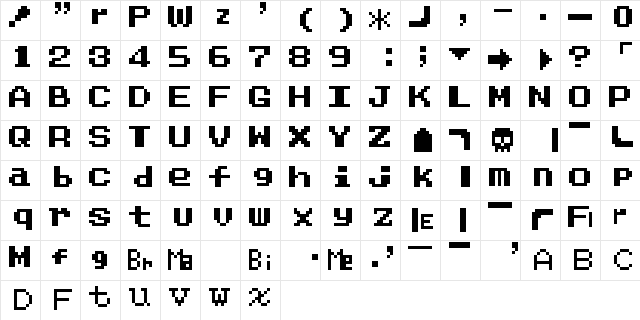
Dragon Warrior III Regular
| Designer | myname5749 |
Design Context for Dragon Warrior III Typeface
Dragon Warrior III offers clean, dependable letterforms without strong stylistic allegiance, making it a practical choice for designers who need flexibility.
Pro Tip: Use Dragon Warrior III in both headline and body roles to test its range before committing to a single application.